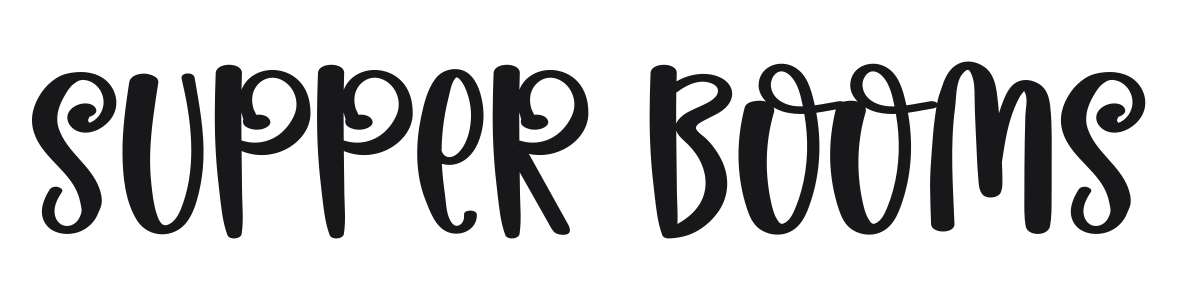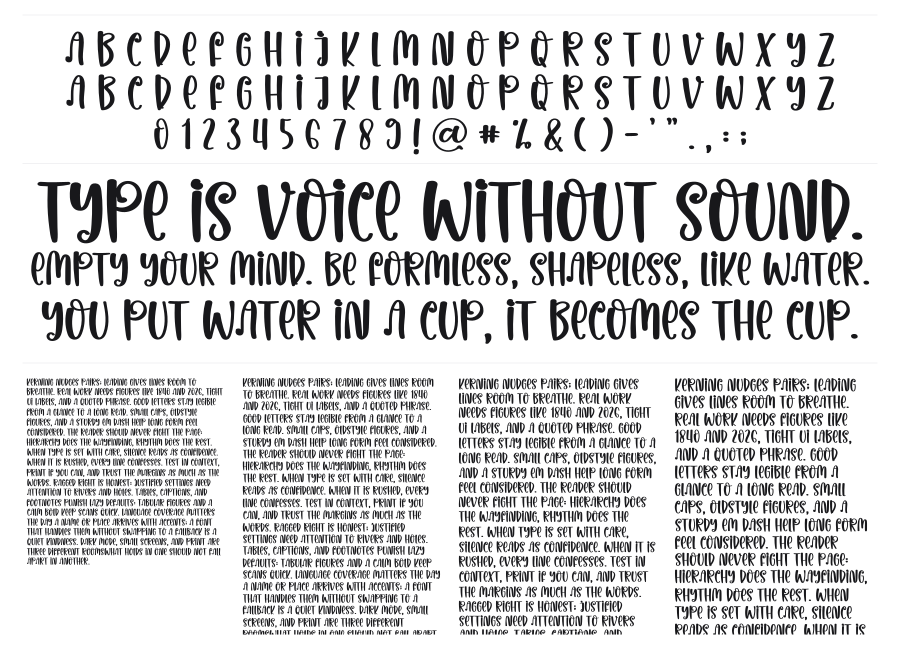
Supper Booms
Supper Booms is a bold upright casual script with chunky rounded strokes and a bouncy handwritten rhythm. Curled terminals and slight stroke contrast keep it lively without feeling chaotic. It works well for food branding, children's content, and any headline that needs warmth and energy.